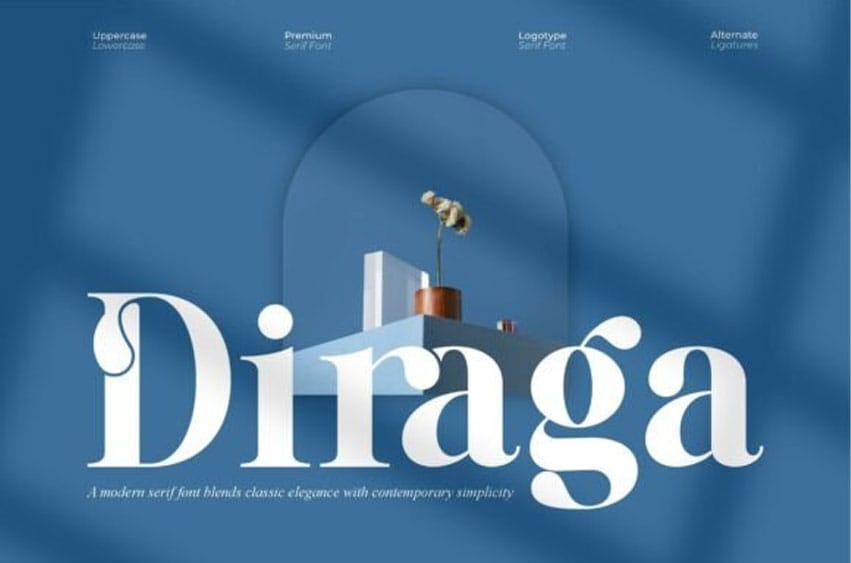
Diraga Font is a refined modern serif font that blends classic elegance with sleek contemporary details. Its bold strokes, graceful curves, and stylish ligatures create a sophisticated look that feels timeless yet fresh.
Perfect for branding, editorials, packaging, invitations, and luxury logos, Diraga adds a high-end flair to any design. Its versatility makes it equally striking in both digital and print projects.